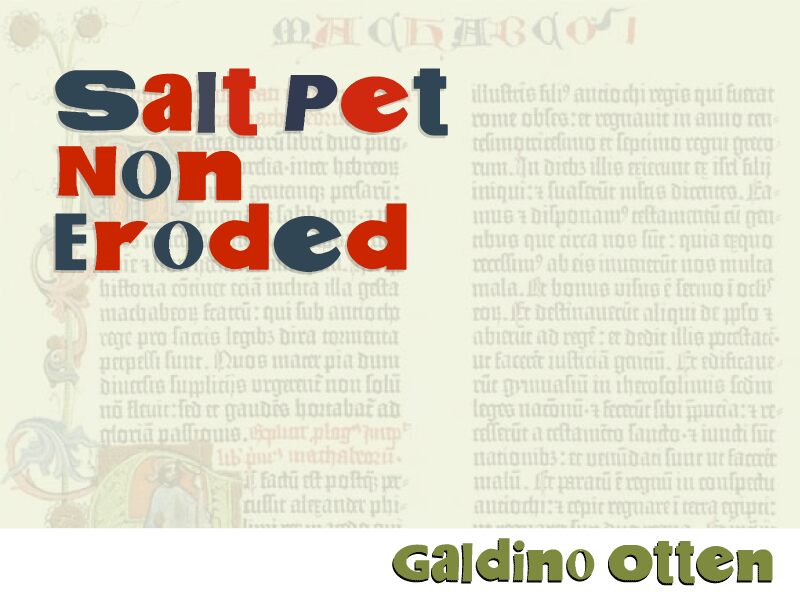
Salt Pet Non Eroded Bold by Galdino Otten is a free decorative display font with a wide, intentionally mismatched assortment of weighty letter styles. Broad geometric capitals collide with pinched serifs, swelling curves, abrupt stroke changes, and uneven proportions that make every word resemble a cut-and-paste typographic collage.
It can turn a poster headline or music cover into a loud visual centerpiece, and its unruly forms also suit experimental streetwear branding and arts event graphics. Its irreverent humor suits younger audiences and independent art or music scenes.